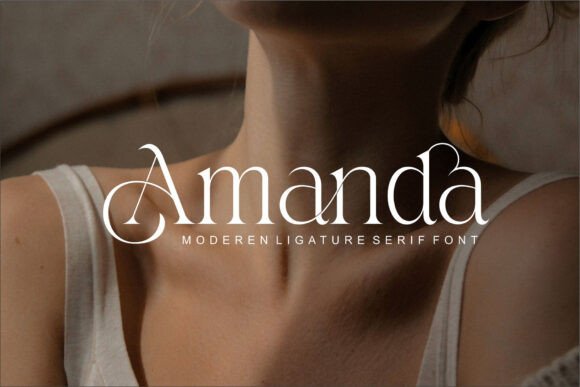
Introducing Amanda: The Elegant Serif Font for Modern Designers
Have you ever been working on a design project, pouring your heart and soul into every detail, only to get stuck on one thing: the font? I certainly have! It was a typical Wednesday evening when I received a message from a client asking for a logo design that exuded elegance and sophistication. I knew I had to find the perfect font to bring their vision to life. That’s when I discovered Amanda, a stunning serif font family that has since become a staple in my design toolkit.
A First Impression: What I Love About Amanda
Amanda is more than just a font – it’s a design statement. Here are a few things that immediately caught my attention:
- ✨ Fashionable and modern: Amanda’s sleek lines and refined curves make it perfect for contemporary designs that require a touch of sophistication.
- ✅ Variety of weights: With multiple weights to choose from, I can use Amanda for everything from bold headlines to delicate body text.
- 💃 Sexy stylish extras: The font comes with some amazing OpenType features, including stylistic alternates and glyphs, which add an extra layer of creativity to my designs.
- 📈 Elegant and classy: Amanda’s classic serif design ensures that my logos and branding materials always look polished and professional.
A Few Quirks to Consider
No font is perfect, and Amanda is no exception. Here are a few things to keep in mind:
- ⚠️ Limited use in body text: While Amanda is amazing for headlines and titles, it may not be the best choice for lengthy body text due to its elegant, yet slightly ornate design.
- 🤔 Requires careful kerning: As with any serif font, kerning can be a bit tricky, especially at smaller font sizes. Make sure to adjust the kerning to ensure optimal readability.
The Story Behind Amanda
Amanda was designed with the modern designer in mind. Its creator, a talented typographer, aimed to craft a font that would be both elegant and versatile. Inspired by classic serif designs, Amanda brings a fresh, contemporary twist to the world of typography.
- Q: Is Amanda suitable for body text?
- A: While Amanda is amazing for headlines and titles, it may not be the best choice for lengthy body text due to its elegant, yet slightly ornate design.
- Q: Does Amanda come with OpenType features?
- A: Yes, Amanda includes a range of OpenType features, including stylistic alternates, glyphs, and ligatures.
- Q: Is Amanda available in multiple weights?
- A: Yes, Amanda comes in a variety of weights, making it versatile for different design applications.